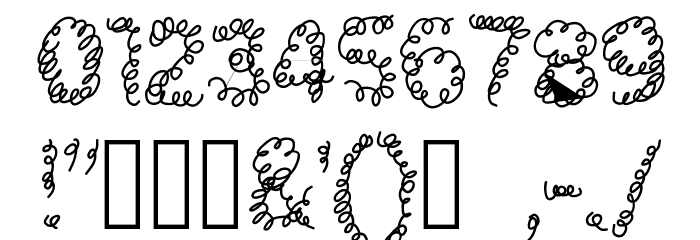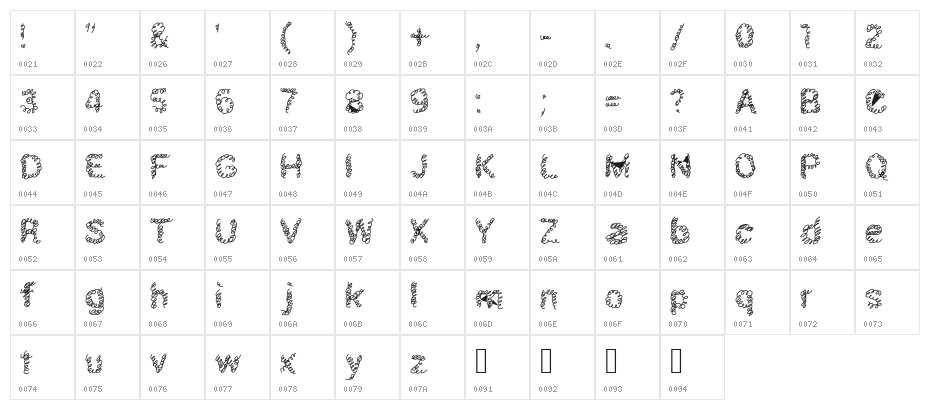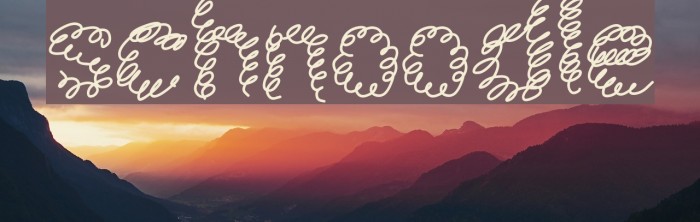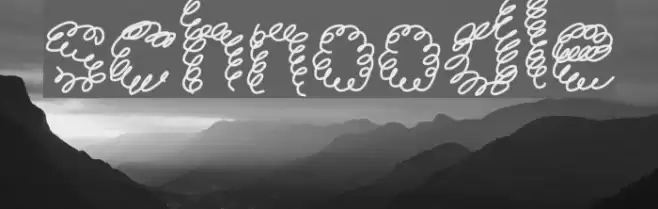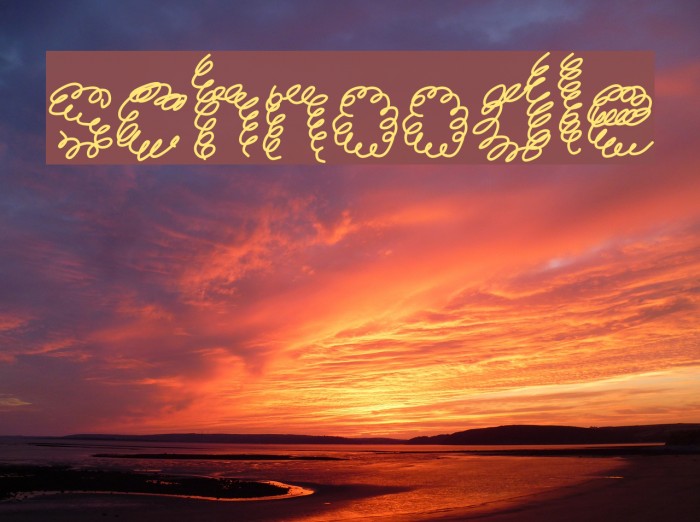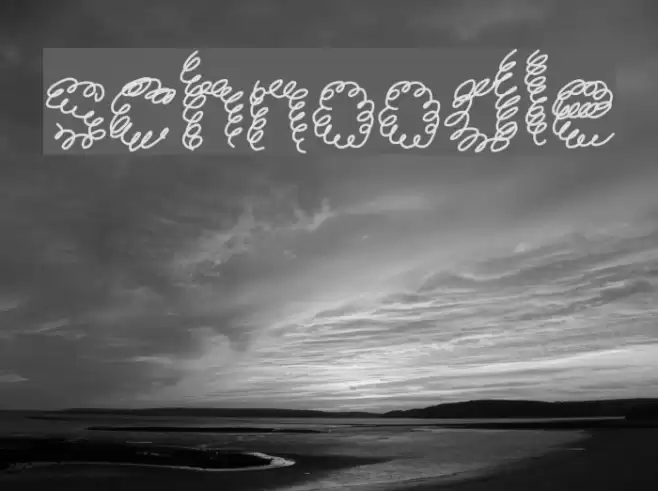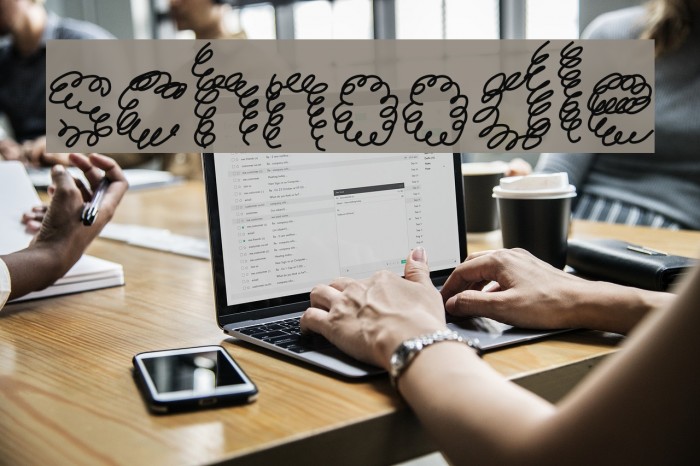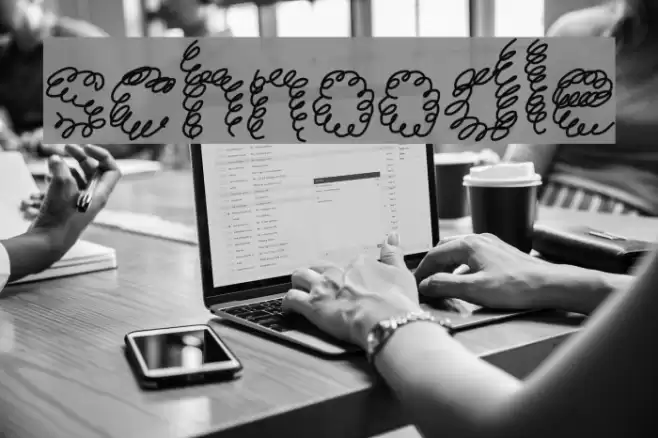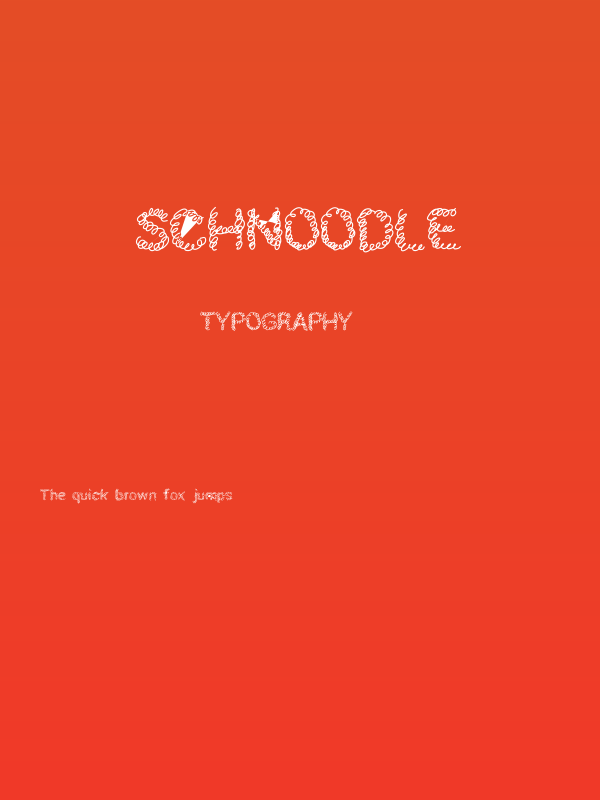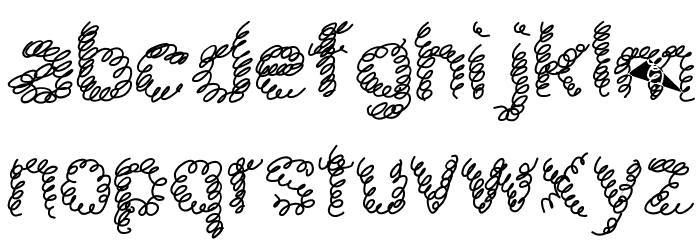
schnoodle Font
schnoodle Description
This font features a playful and whimsical design, characterized by its curly, looped strokes that create a sense of movement and fun. Each letter is composed of a series of spirals and loops, giving it a unique and decorative appearance. The font maintains a consistent style across uppercase, lowercase, numbers, and special characters, making it versatile for various creative projects. Its intricate design suggests a hand-drawn quality, adding a personal touch to any text. The font's distinctiveness makes it ideal for projects that require a standout, artistic element.